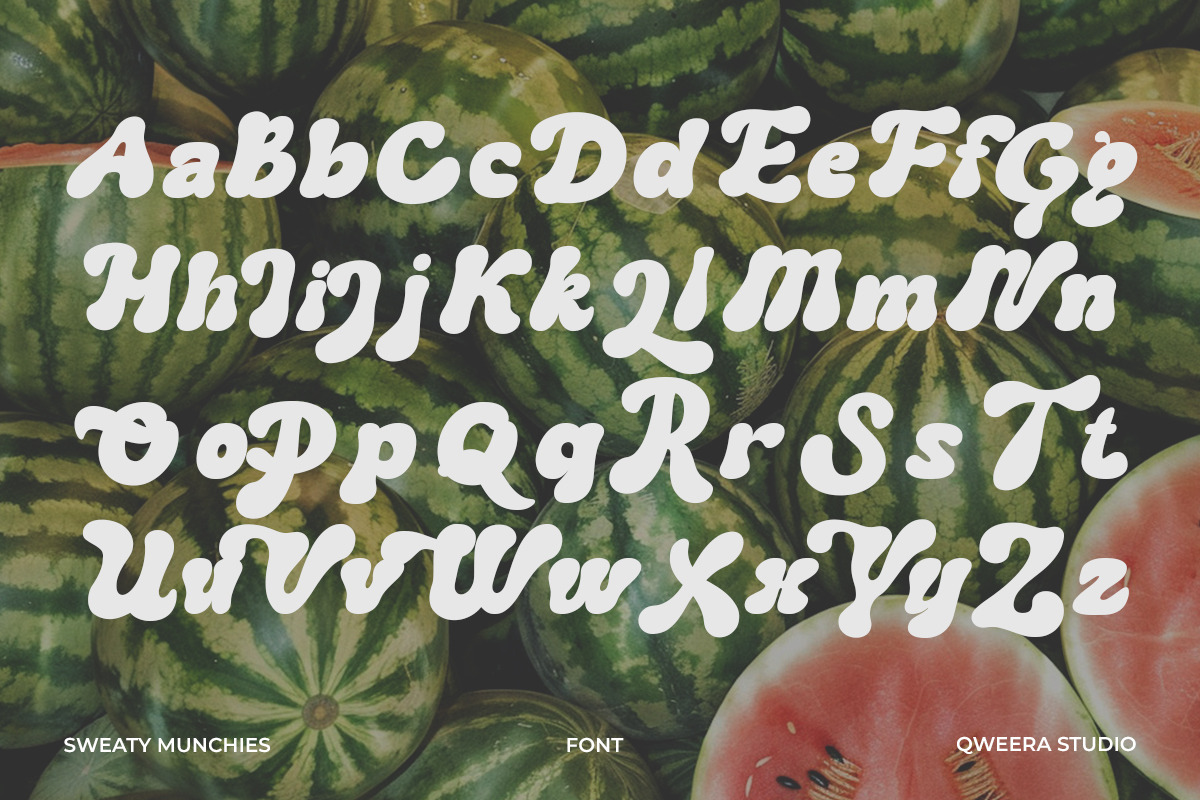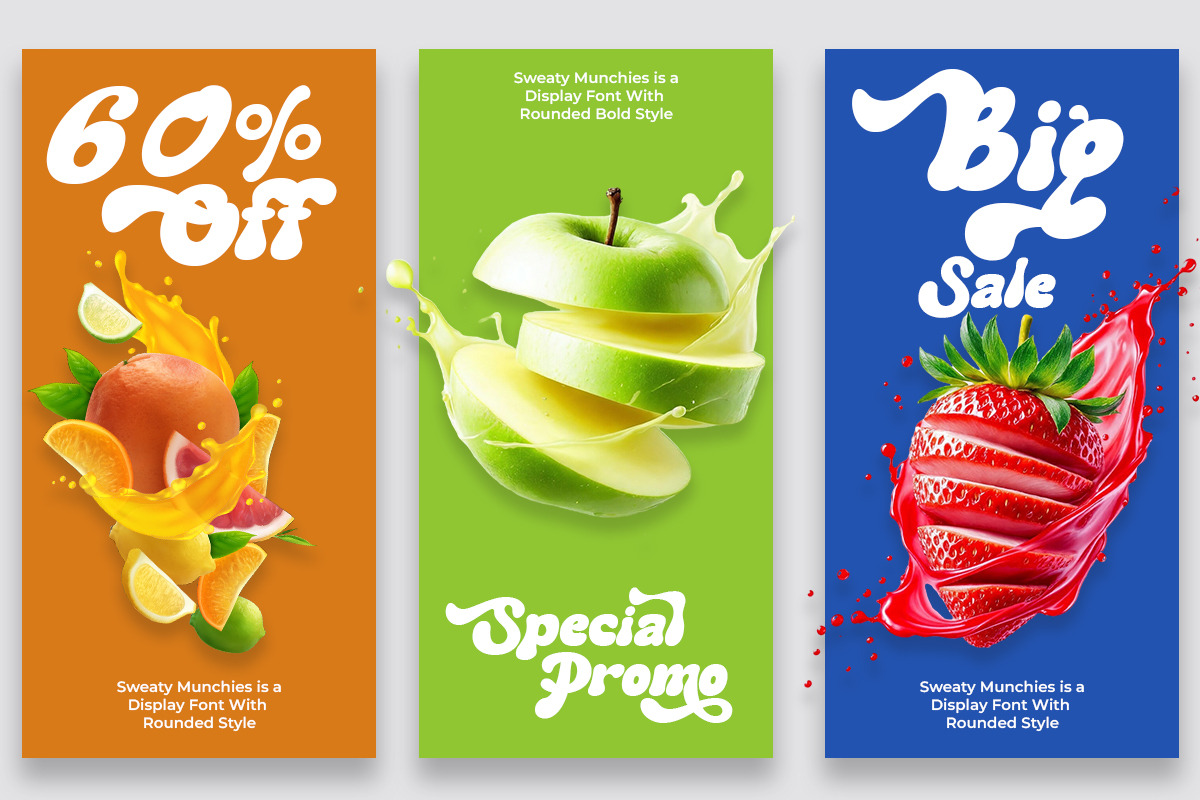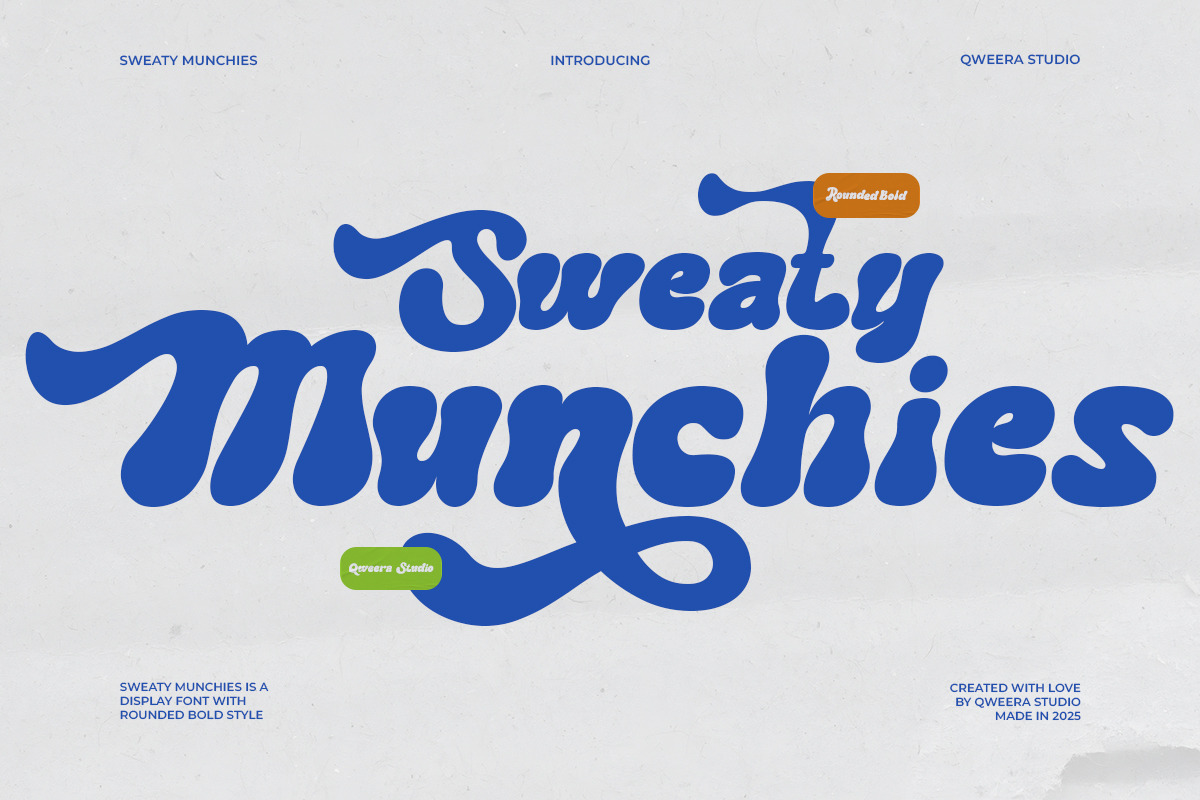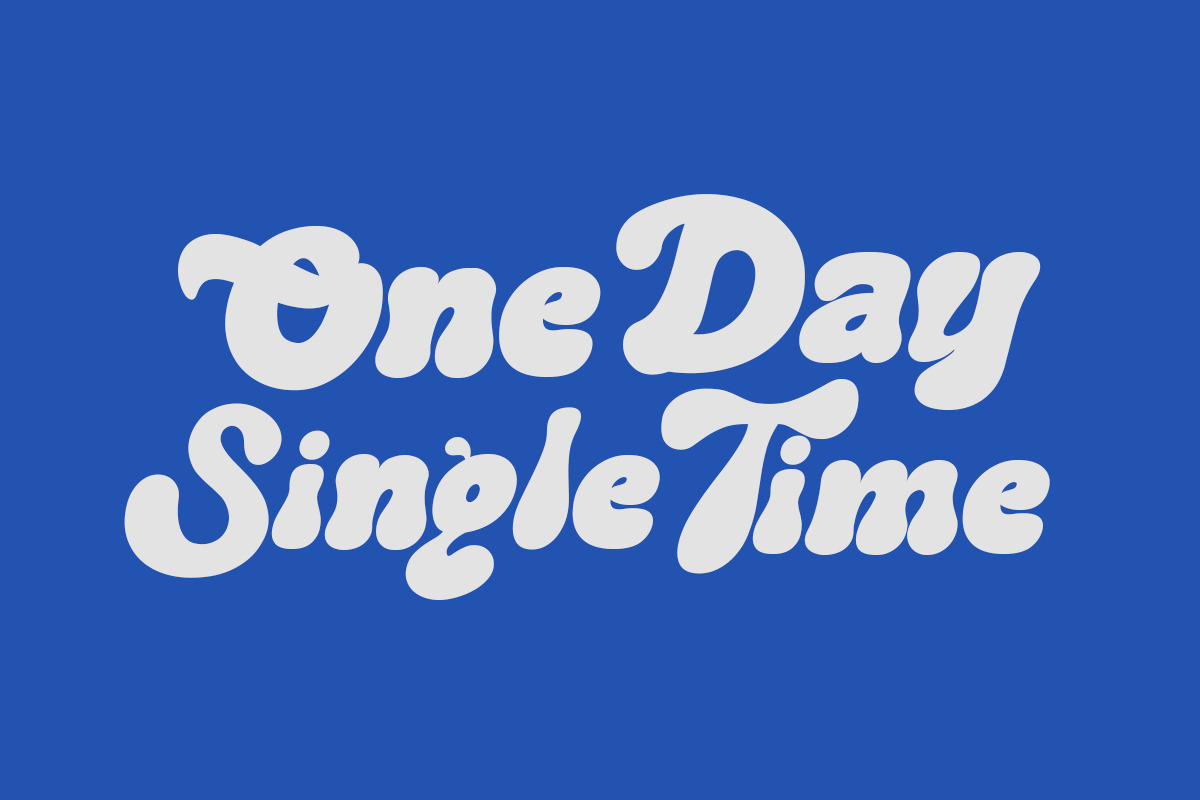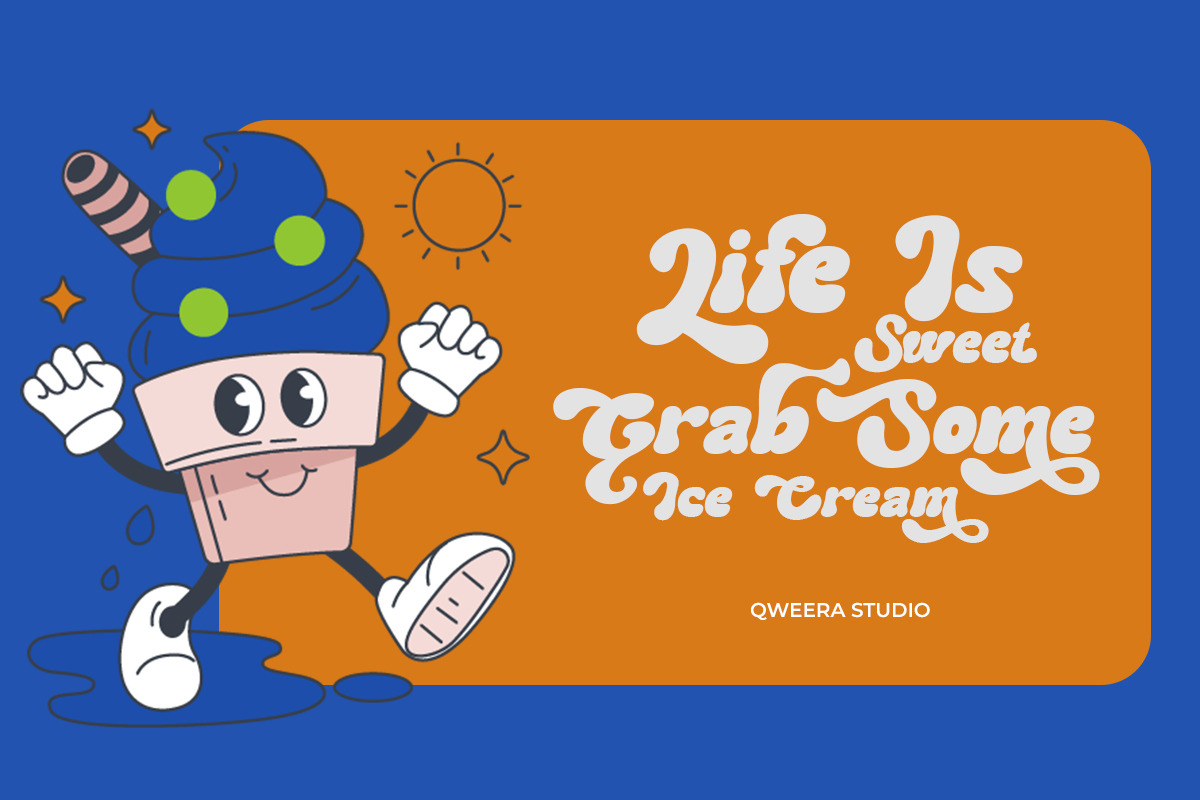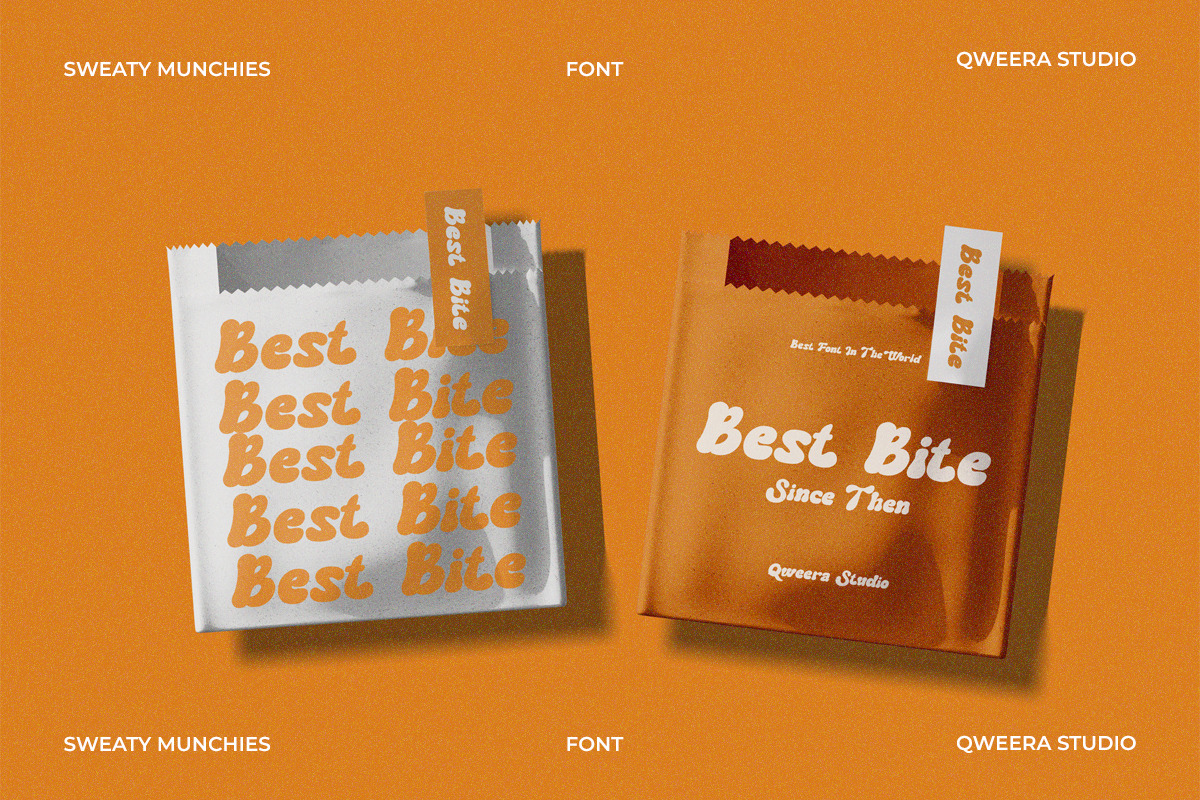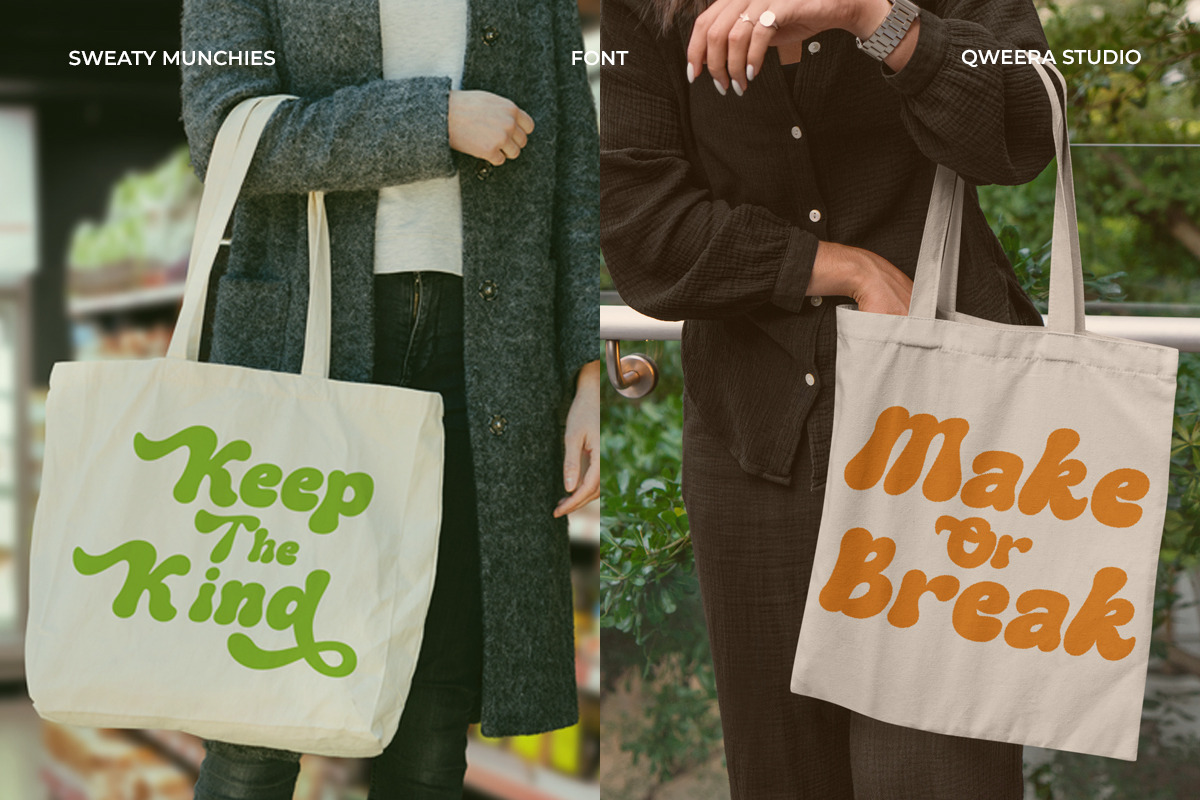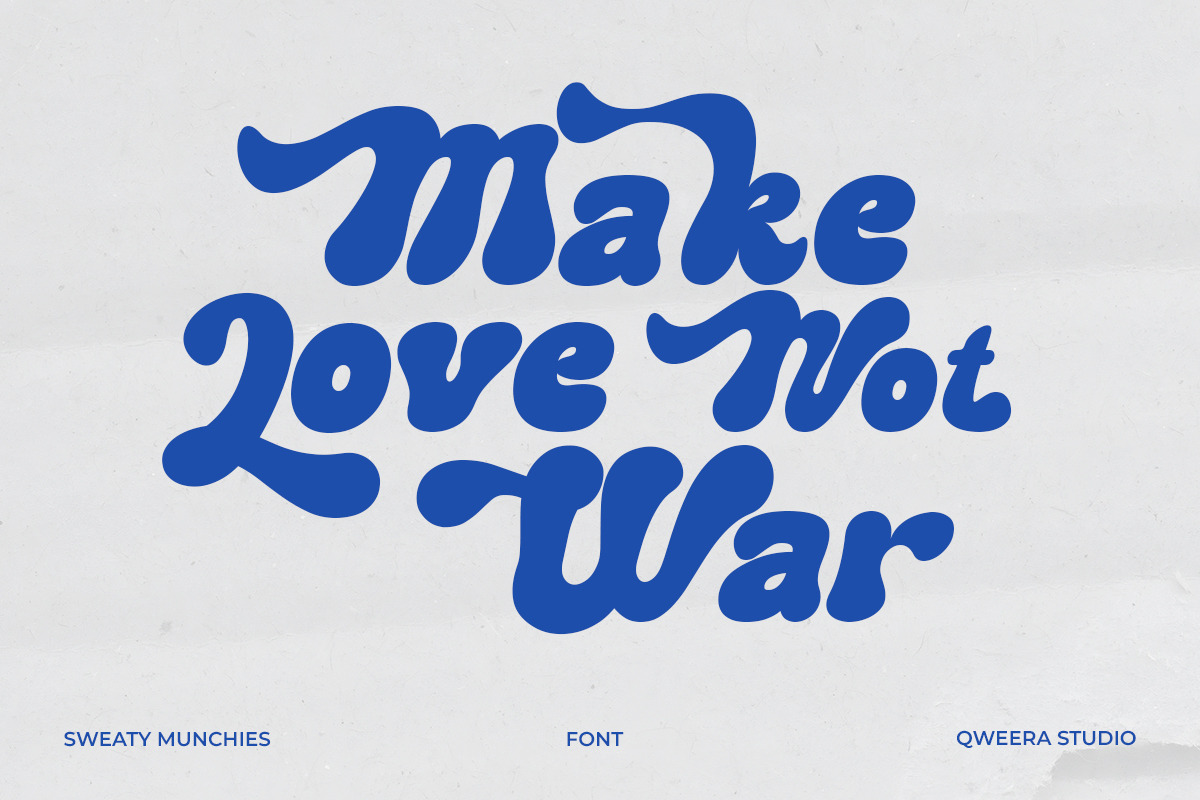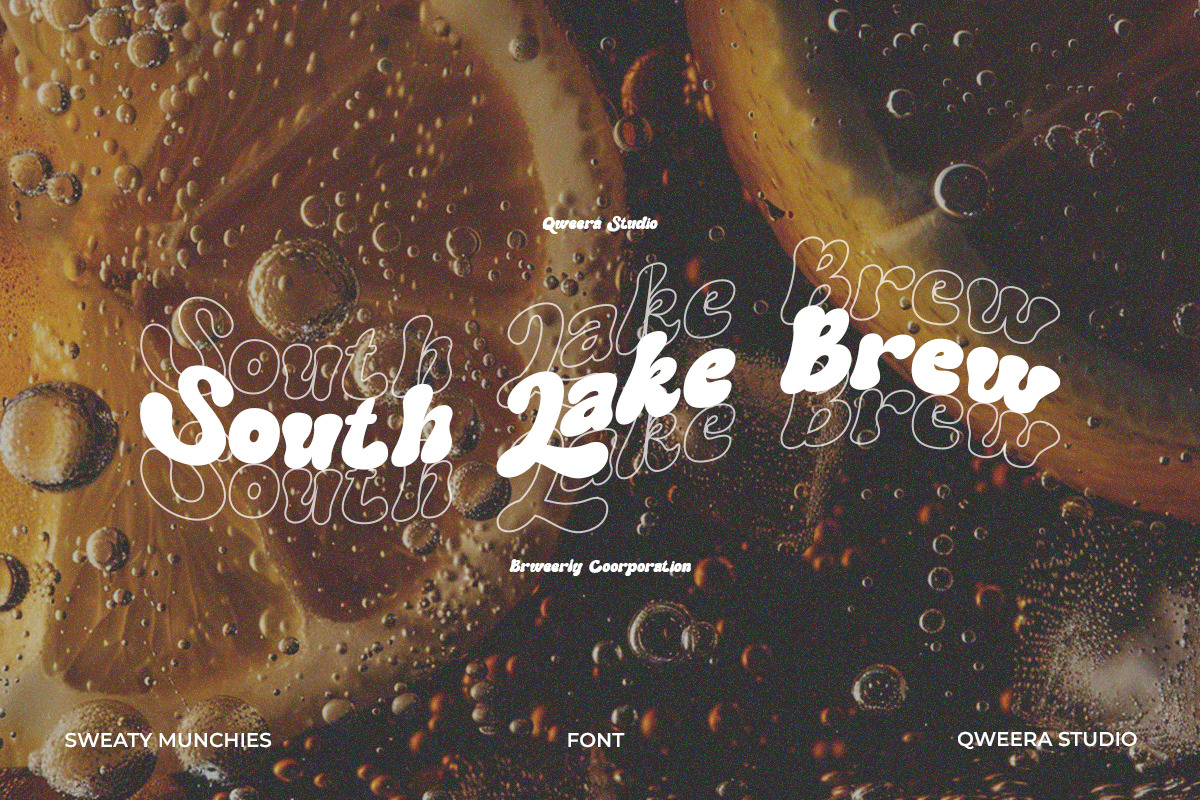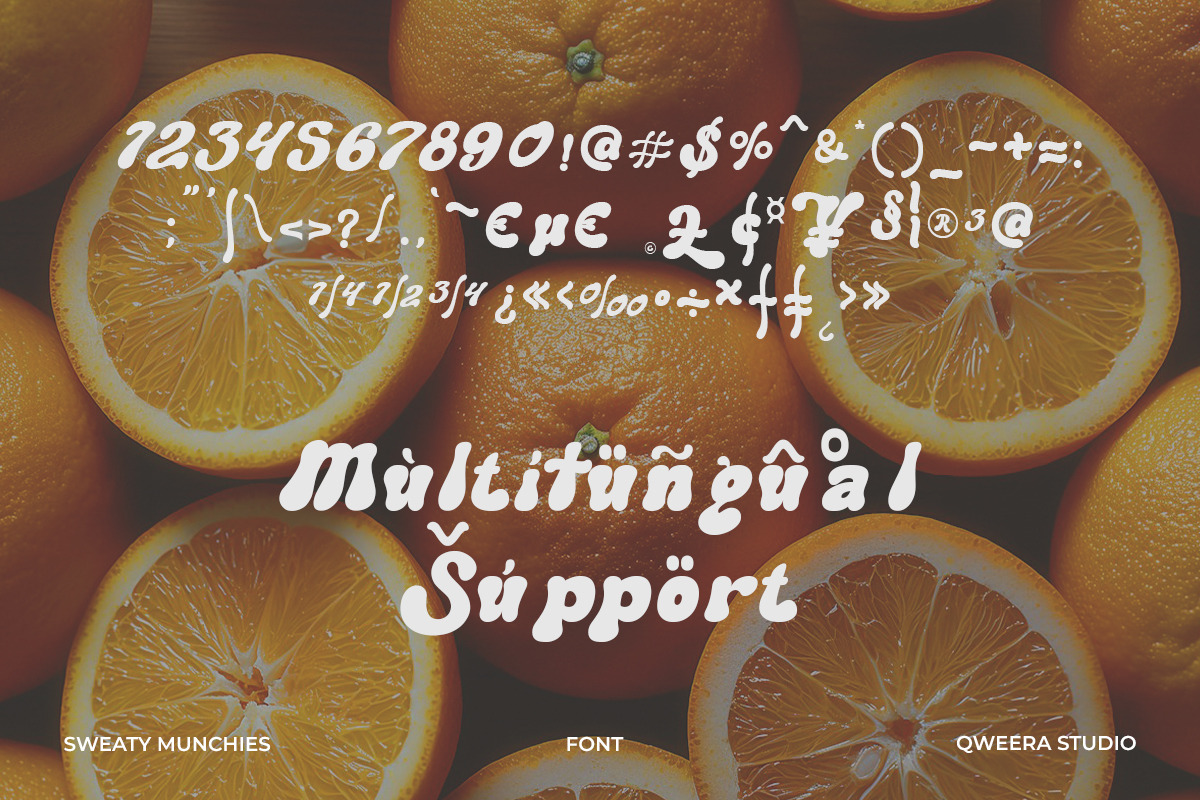
Sweaty Munchies - Bold Display Font
Sweaty Munchies - Bold Display Font with Playful Style
Sweaty Munchies is a bold display font with a rounded and playful style, designed to bring energy and creativity to your projects. Featuring alternates and ligatures, this font offers excellent flexibility, allowing you to create unique and dynamic typography effortlessly.
✦ Key Features:
- Bold & Playful Style – Perfect for eye-catching and fun designs.
- Alternates & Ligatures – Customize your text with stylish variations.
- Easy to Use – Ideal for both digital and print applications.
✦ Perfect for:
- Branding & Logos – Make a strong, memorable visual identity.
- Posters & Magazines – Add impact and personality to editorial layouts.
- Print Designs – Ideal for packaging, merchandise, and advertising materials.
- Opentype features ( ligature, alternate )